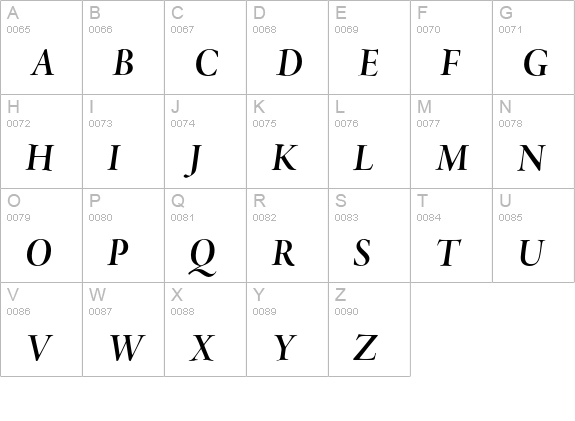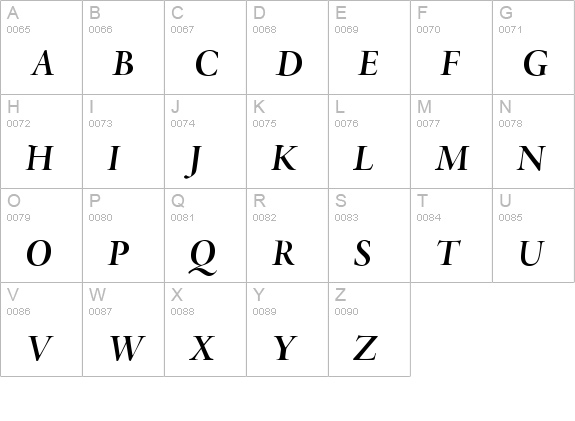
Adobe Jenson Pro Bold Italic Display Font Details
Adobe Jenson Pro Bold Italic Display is a strong, high-contrast, italic variant in the Adobe typeface family \xE2\x80\x94 well suited to headlines, attention-grabbing titles, and strong calls-to-action.
Adobe Jenson Pro Bold Italic Display font is a stunning and elegant typeface that exudes sophistication and style. With its bold weight and italicized design, it commands attention and adds a touch of flair to any design project. Perfect for headings, titles, and other display purposes, this font is sure to make a statement. What's even better is that Adobe Jenson Pro Bold Italic Display font is available for free download at FontsMarket.com. Simply visit the website and get instant access to this beautiful font to elevate your design projects to the next level. Don't miss out on the opportunity to add this premium typeface to your collection at no cost.